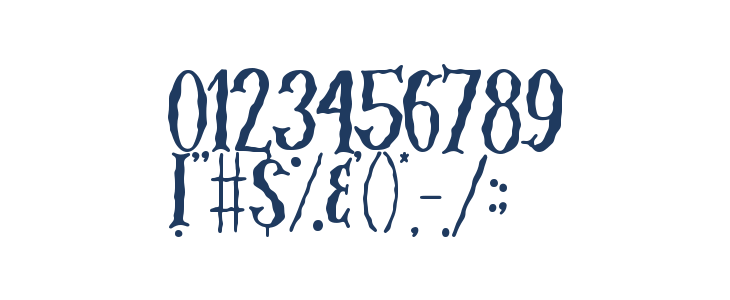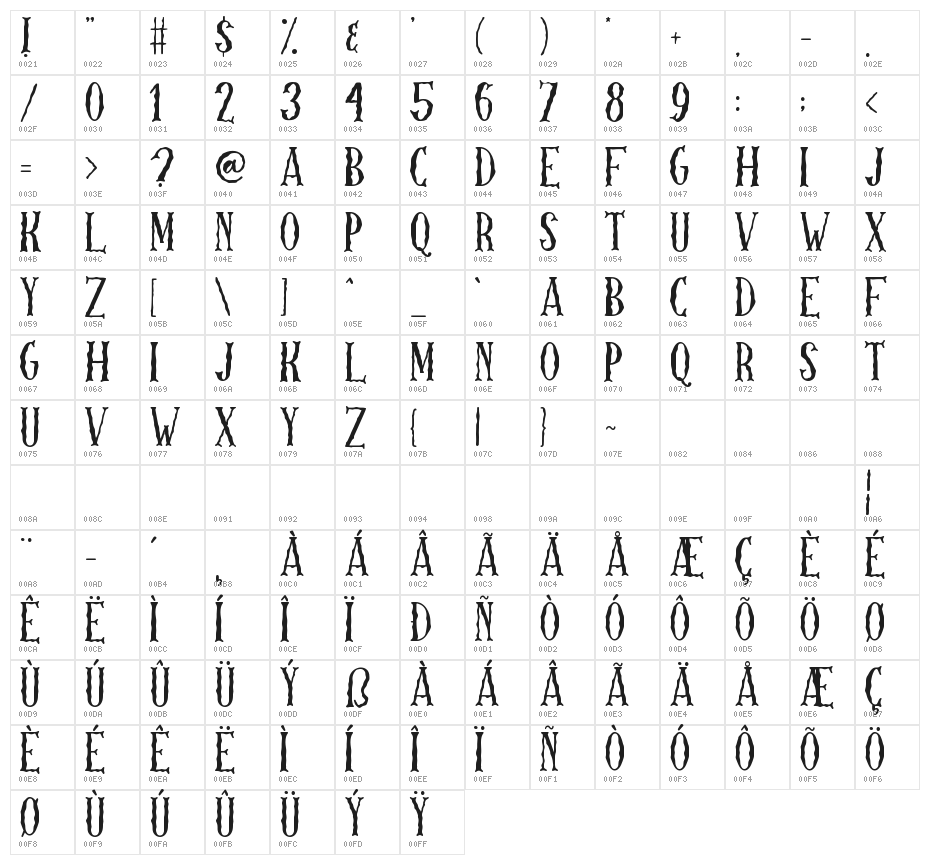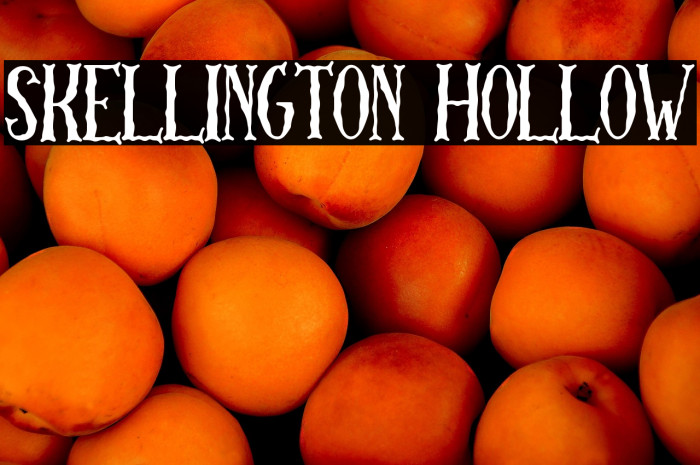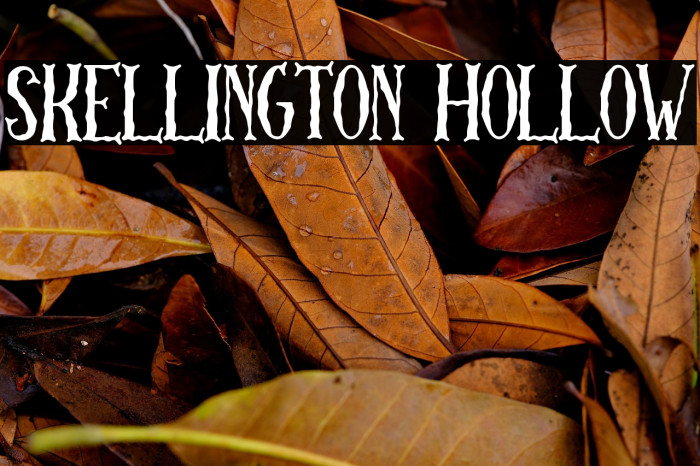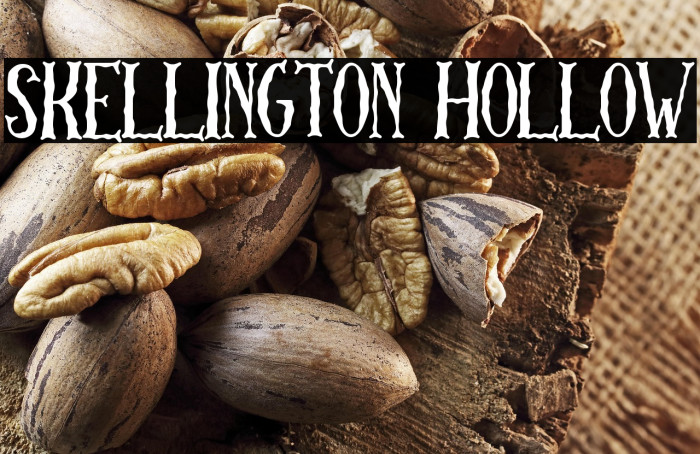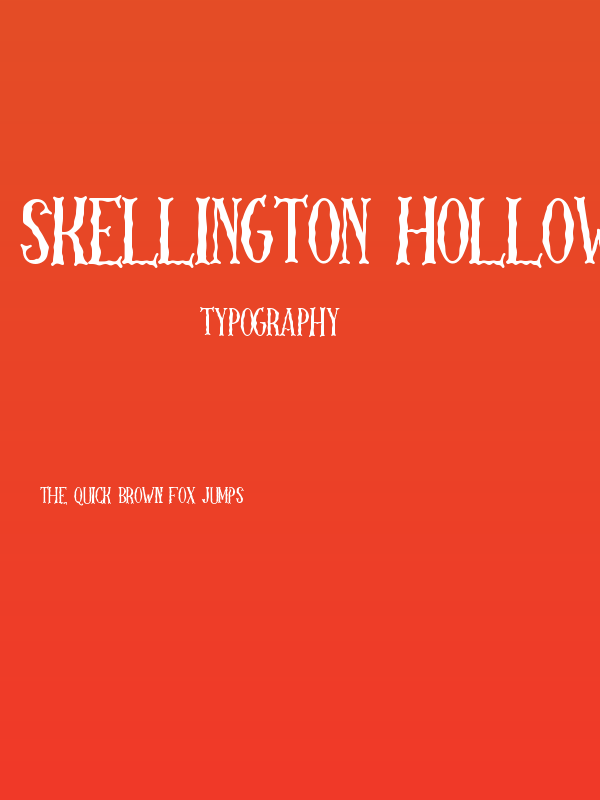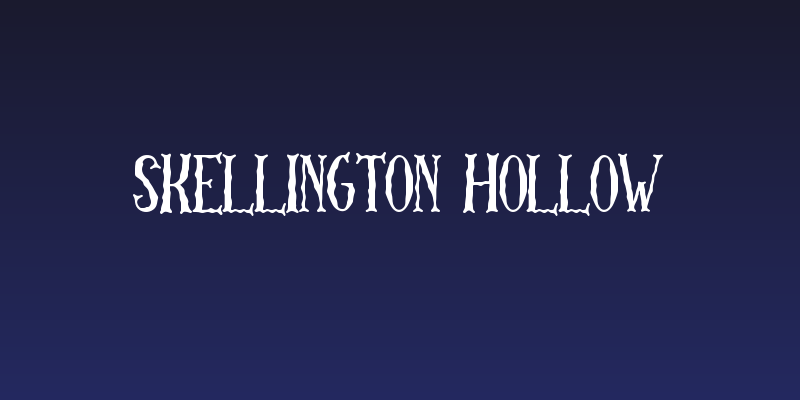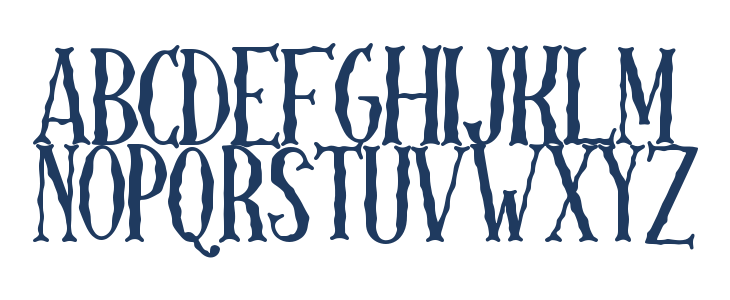
Skellington Hollow Font
Skellington Hollow Description
This font features a distinctive, eerie style with elongated, jagged edges that evoke a sense of mystery and intrigue. The characters are unevenly shaped, giving them a hand-drawn appearance that is both whimsical and slightly unsettling. The uppercase and lowercase letters maintain a consistent height, while the numbers and special characters follow the same irregular design, enhancing the font's unique character. The overall look is reminiscent of a Halloween or gothic theme, making it perfect for projects that require a spooky or fantastical touch.
| Proposed Projects | Ideal for Halloween-themed designs, spooky invitations, fantasy book covers, and decorative posters. |